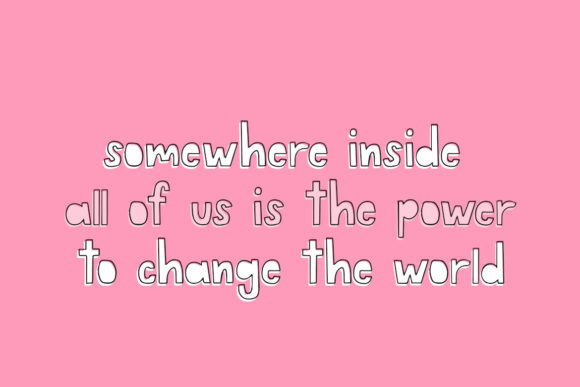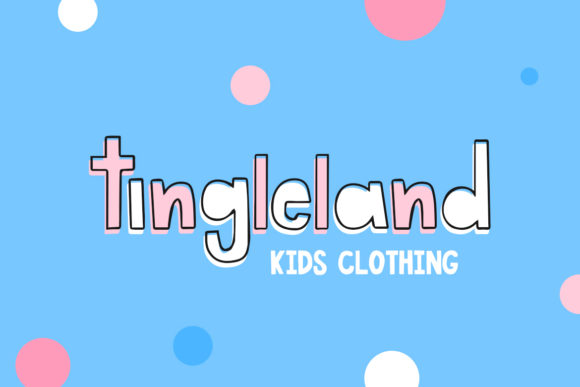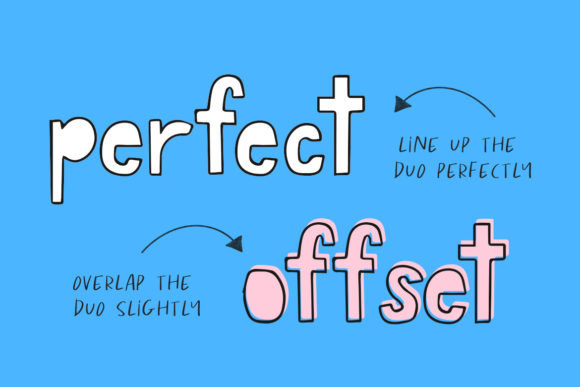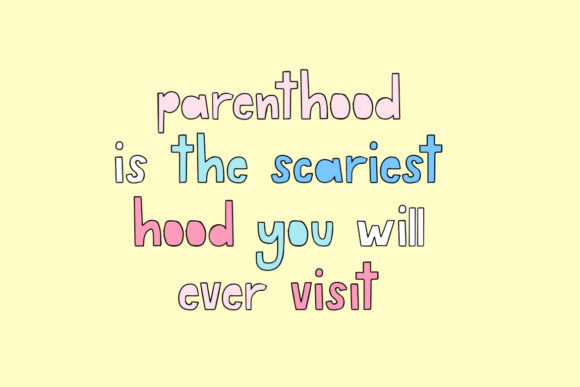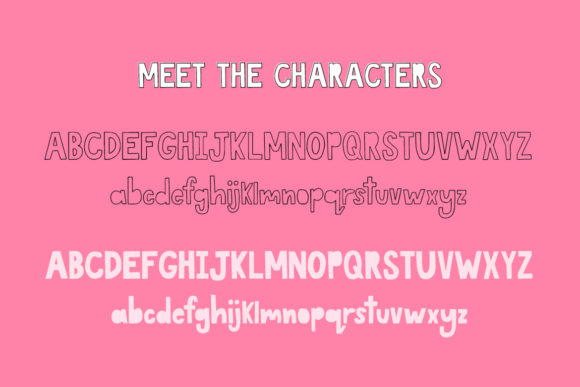
Introduction to Juiceaholic Font
Have you ever found yourself in the middle of a creative project, staring at a blank page, and suddenly, the perfect idea strikes? The colors, the shapes, the words – everything comes together in a beautiful, whimsical way. For designers, this moment is pure magic. And, what if I told you that there’s a secret ingredient to making these moments happen more often? Say hello to the Juiceaholic Font – a cute and playful display font that’s about to become your new best friend.
Whether you’re working on a design project for a client or just experimenting with new ideas, the Juiceaholic Font is the perfect addition to your design resource arsenal. With its joyful and neat vibe, this font is sure to give your designs a fun, cartoon-like feel that’s hard to resist. And, the best part? It’s a high-quality, free download that’s perfect for any creative project. So, what are you waiting for? Get ready to unleash your inner designer and make your creative projects shine with the Juiceaholic Font.
Key Features of Juiceaholic Font
- High-quality design resource suitable for various creative projects, including digital art and graphic design.
- Features a unique and modern aesthetic, perfect for adding a touch of sophistication to any design project.
Honest Review: Juiceaholic Font
I recently had the chance to try out the Juiceaholic Font for a creative project, and I must say, it’s been a game-changer. The first thing that caught my attention was its high quality and versatility. This font is perfect for designers who want a clean and modern look for their design resources.
- ✨ The font’s transparent background makes it easy to customize and combine with other design elements.
- ✨ The font is highly legible, even at small sizes, making it ideal for digital design projects.
- ⚠️ The font may not be suitable for complex or highly detailed designs, as it can get lost in the background.
- ⚠️ Some users may find the font too minimalist, which can be a drawback for those who prefer more elaborate typography.
Overall, I’m really impressed with the Juiceaholic Font. Its high quality, versatility, and free download make it a must-have for any designer’s toolkit. While it may have some limitations, I believe it’s a solid choice for creative projects that require a clean and modern look.
Tips for Getting the Most Out of Juiceaholic Font
For best results, use the Juiceaholic Font on a transparent background to ensure that the font’s unique design features are showcased. Experiment with different font sizes and colors to create a visually appealing design. You can also use the font in combination with graphics and images to add a creative touch to your project.
The Juiceaholic Font is ideal for use in creative projects such as logos, posters, and social media graphics. Its unique design and high-quality features make it a great choice for designers looking to add a touch of personality to their work.